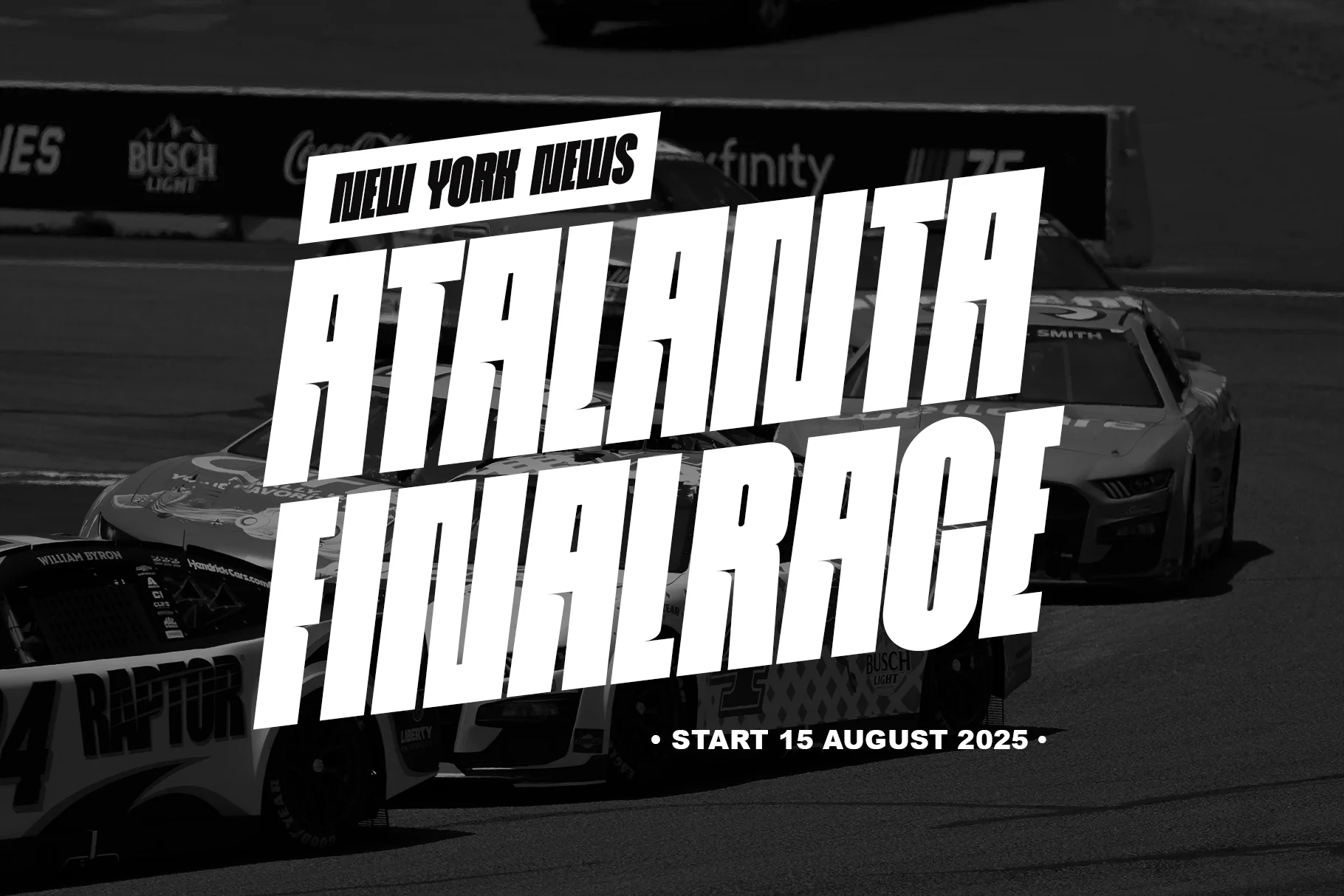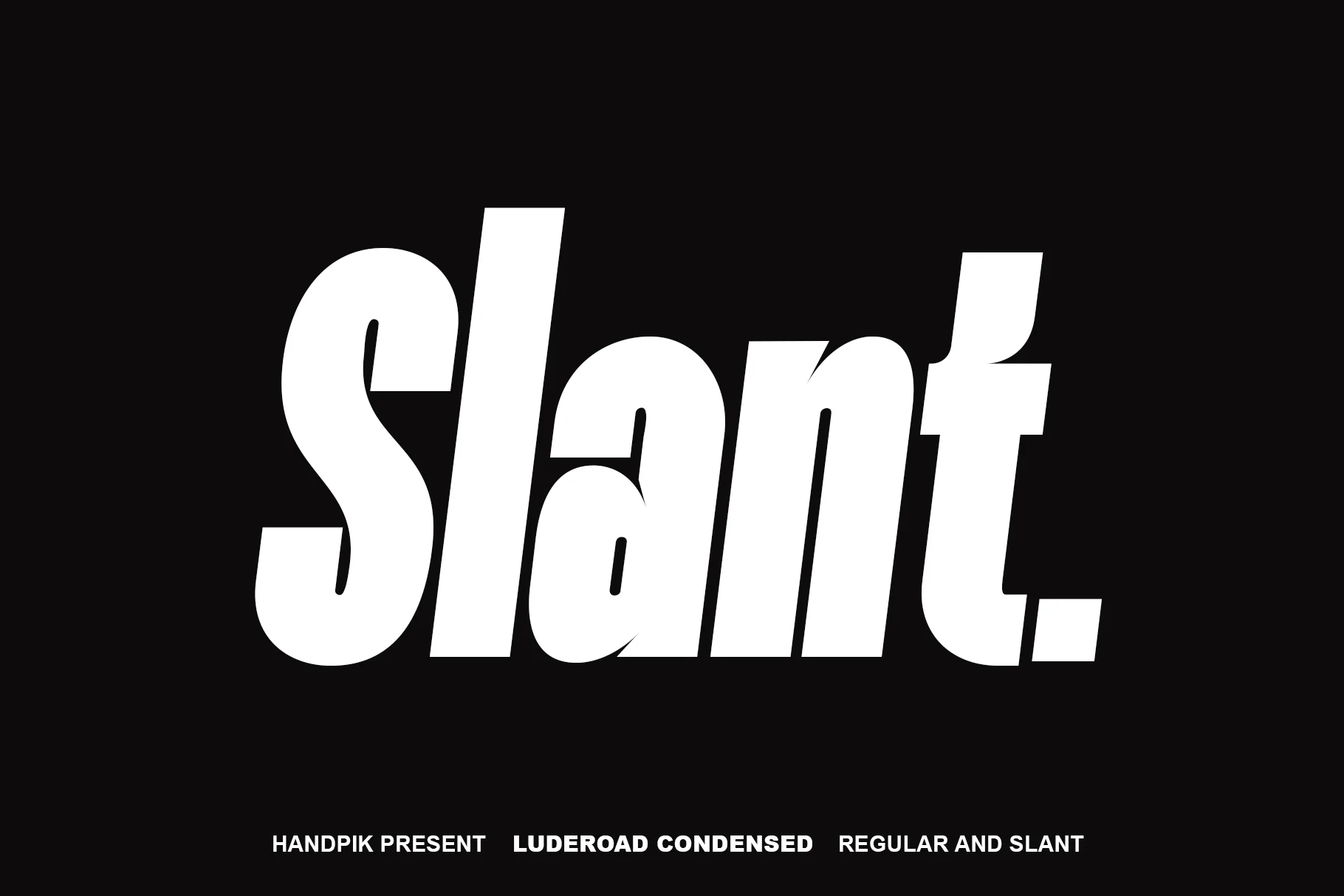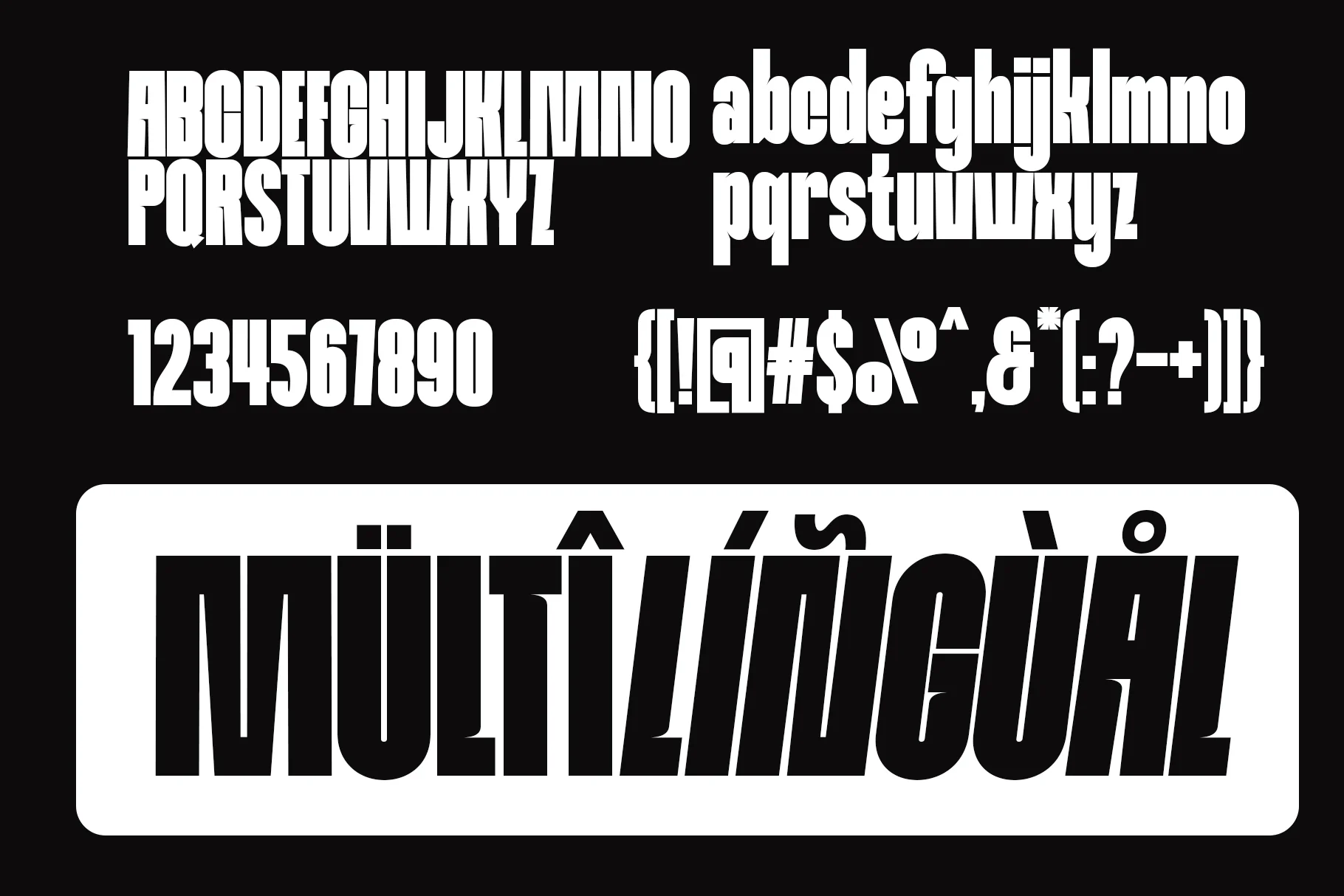
Lude Road
- Spacing Condensed
This font is a bold, condensed display sans-serif with a strong, aggressive, and dynamic character. The letterforms are tall, narrow, and compact, with consistent stroke thickness, creating a very bold and bold visual impression. The dominant vertical proportions make this font appear striking and powerful.
The main characteristic of this font is its condensed style with a slant option, which conveys a sense of speed, movement, and power, closely associated with the automotive, sports, and action worlds. The letterforms' angles are sharp yet clean, creating a balance between a modern aesthetic and a masculine feel.